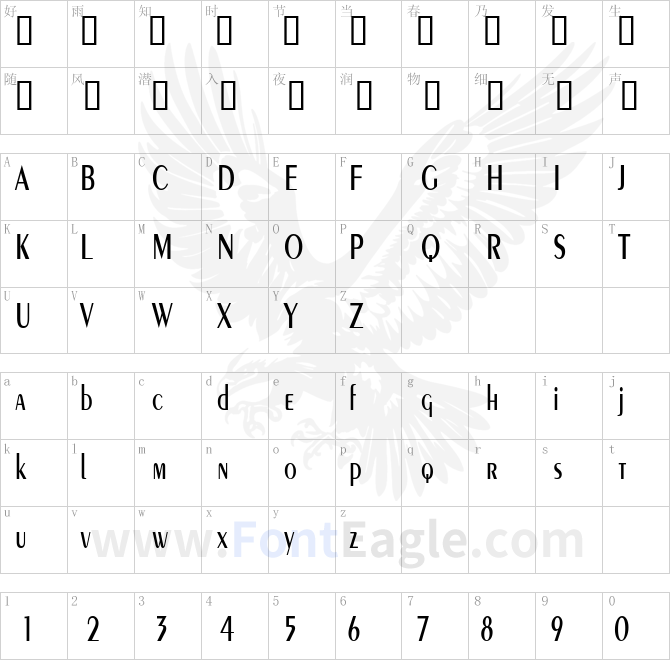
PenwinCondensed is a great font, widely used in graphic design, single-page menu design, poster design and other fields, and is deeply loved by designers.PenwinCondensed download.